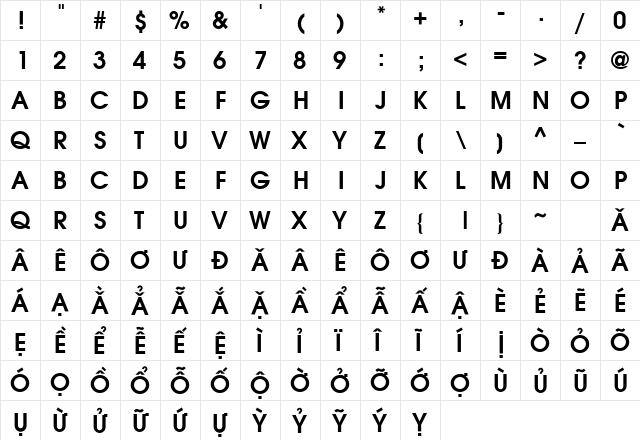
.VnAvantH Bold
Design Context for .VnAvantH Typeface
.VnAvantH offers clean, dependable letterforms without strong stylistic allegiance, making it a practical choice for designers who need flexibility. Its bold stroke weight gives it real presence on the page.